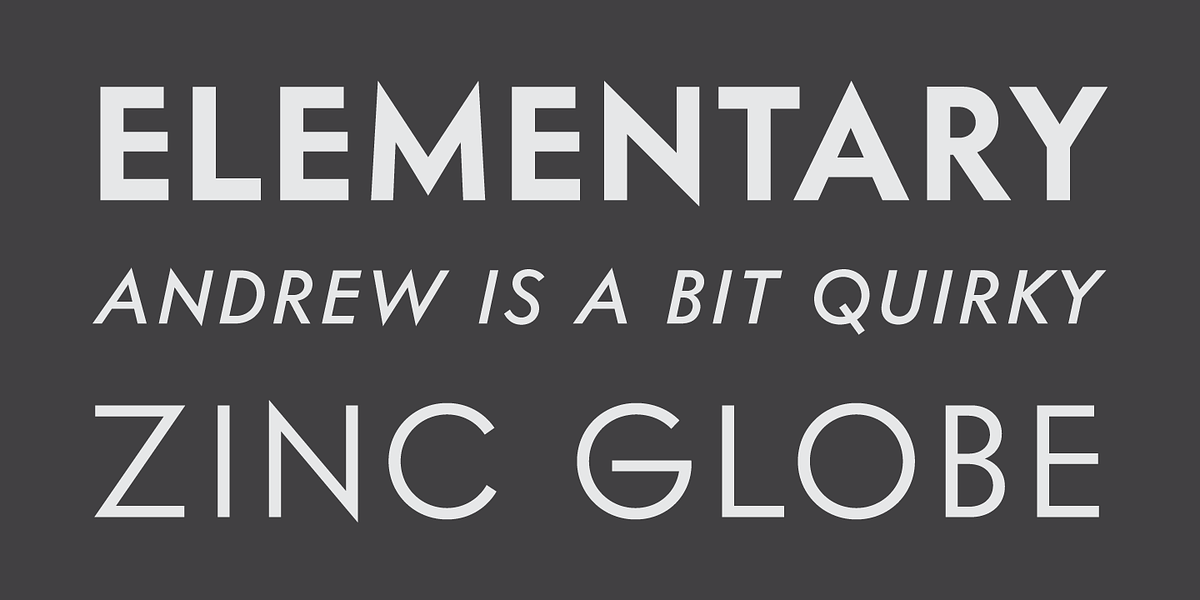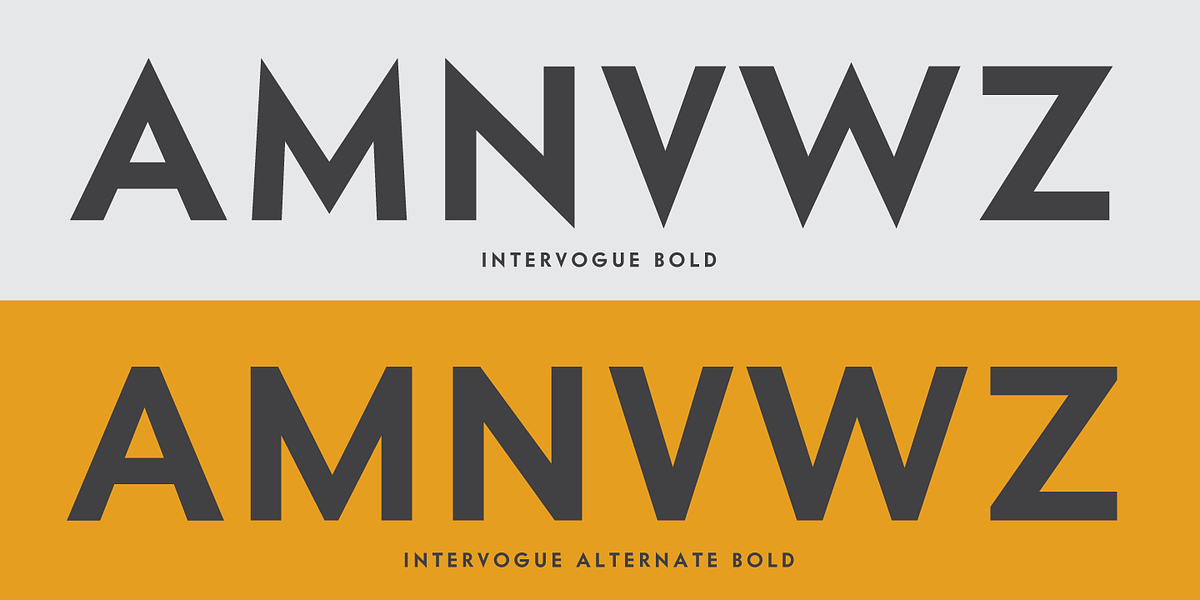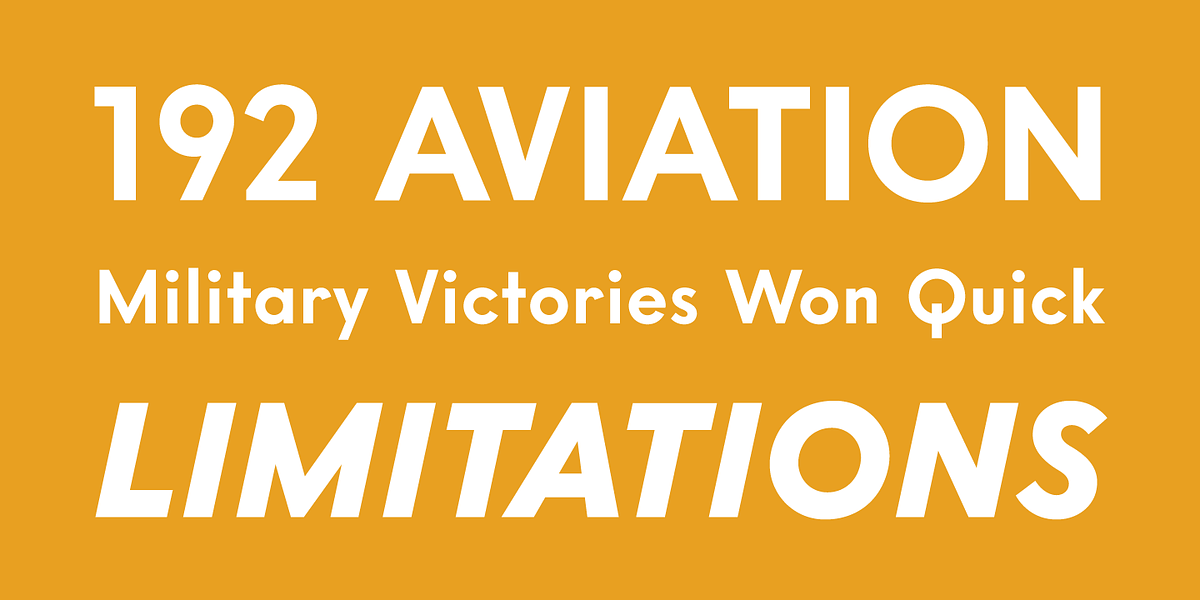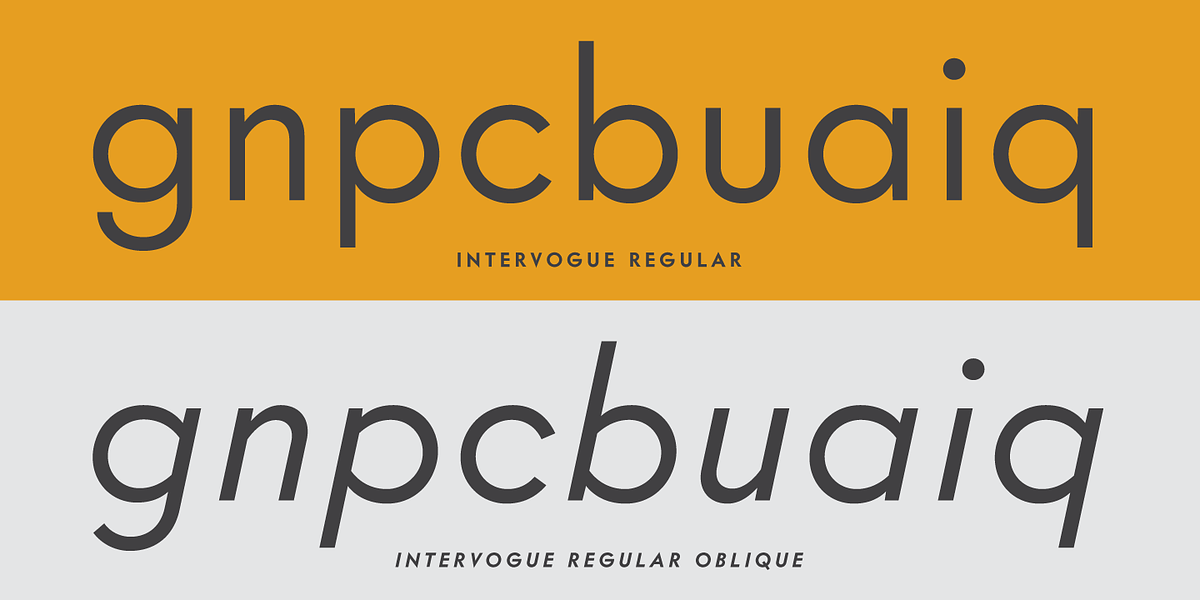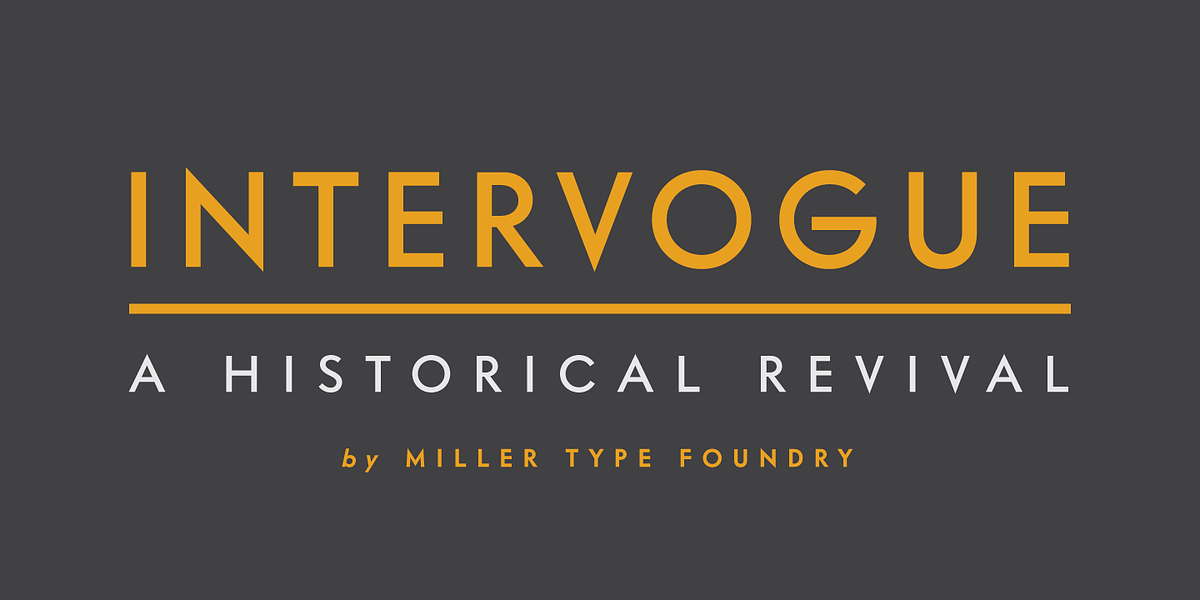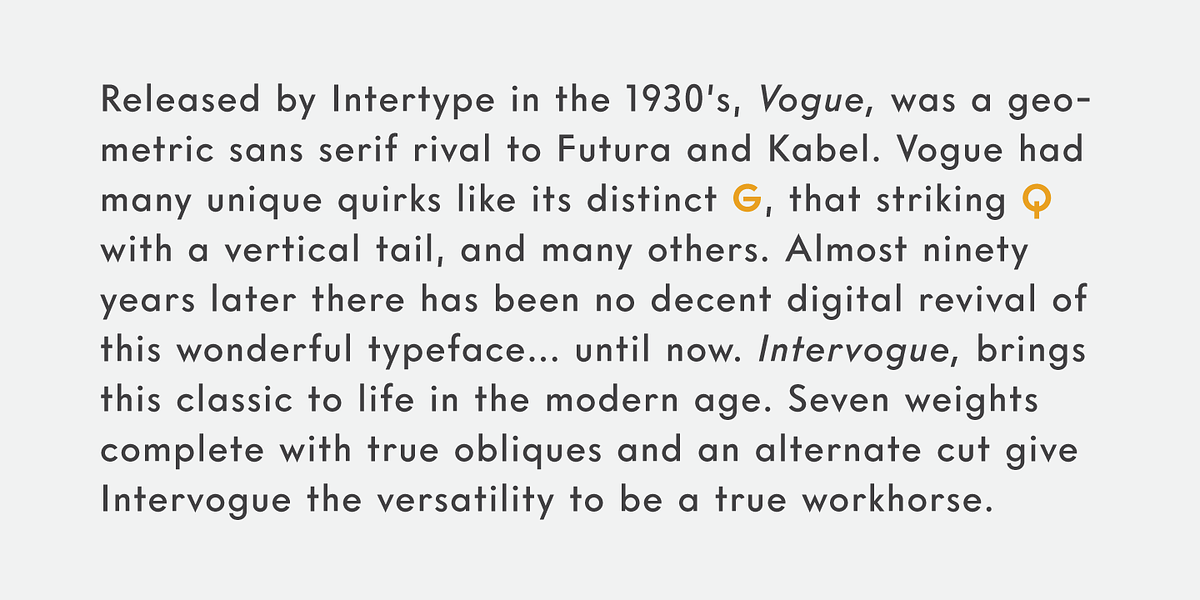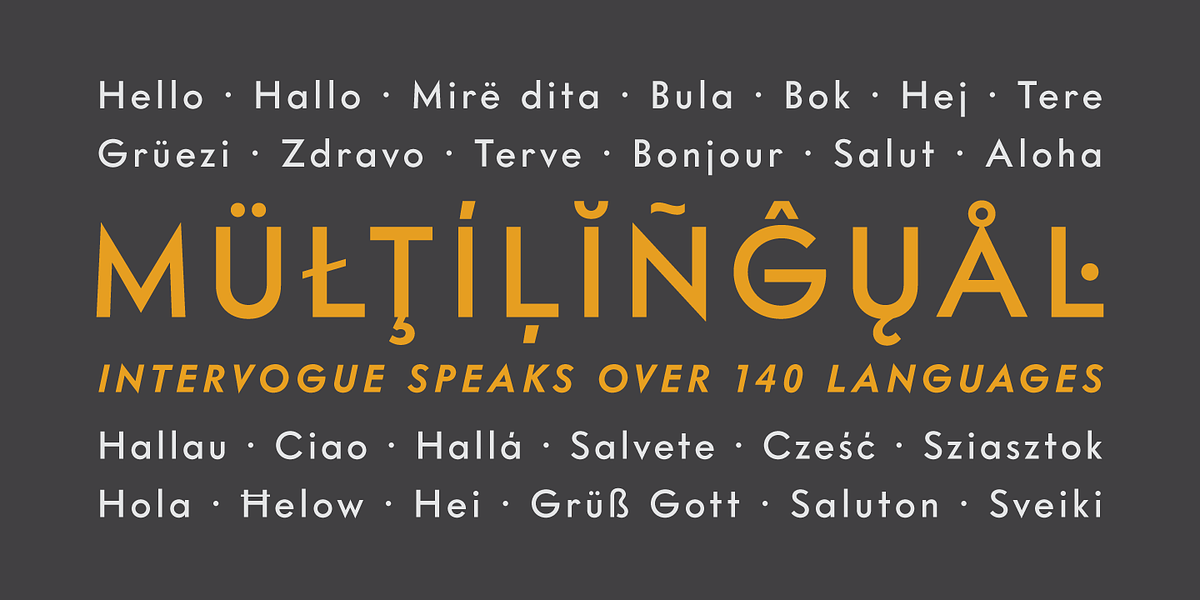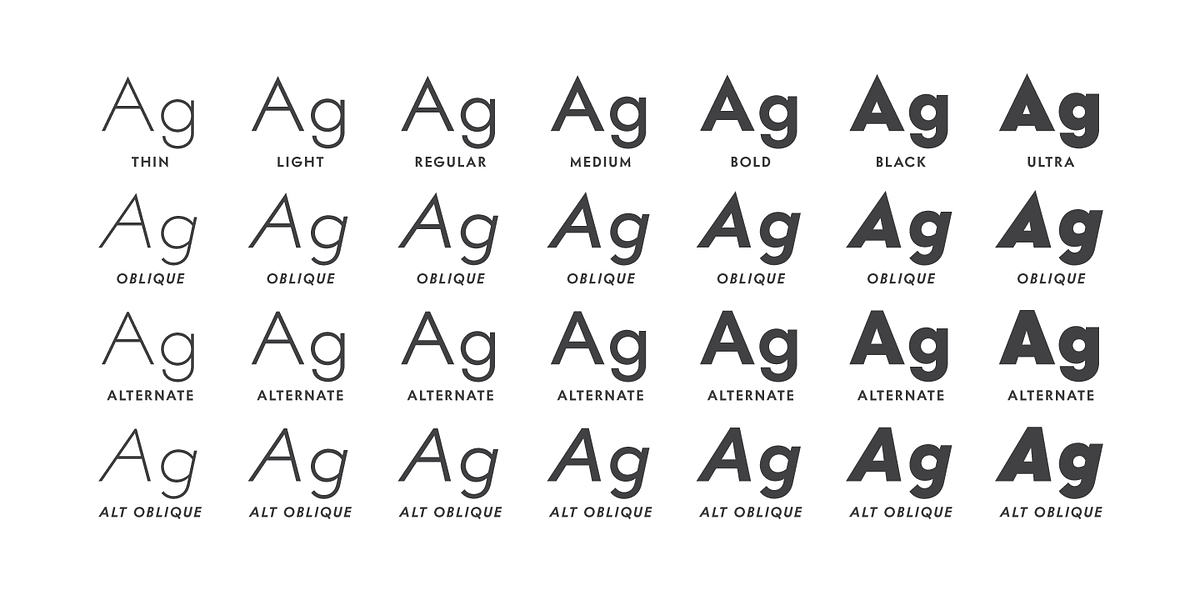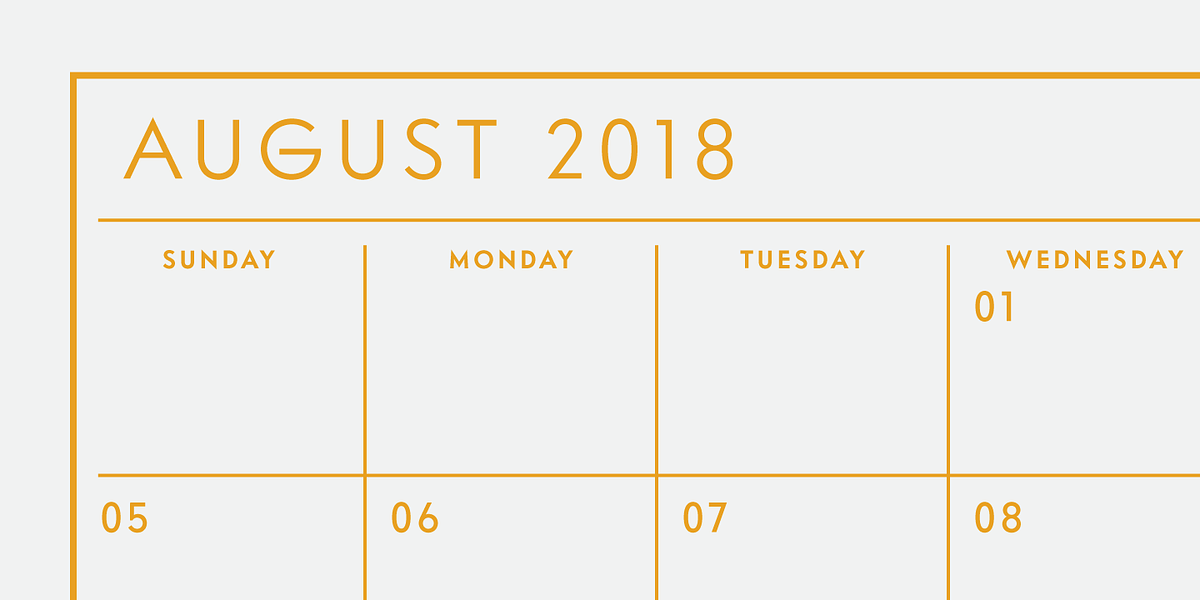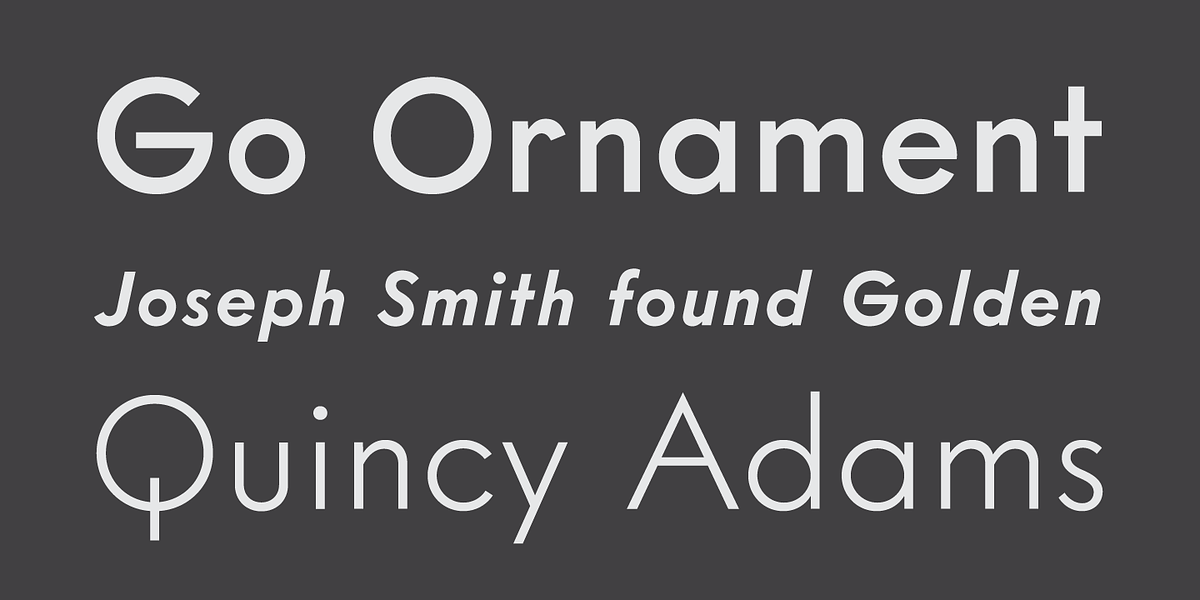
Intervogue
Intervogue is a digital revival of the Vogue typeface, a geometric sans serif font released by Intertype in the 1930s. It features seven weights with true obliques and an alternate cut for added versatility. Intervogue's design draws inspiration from the classic Vogue typeface while updating it for modern use.